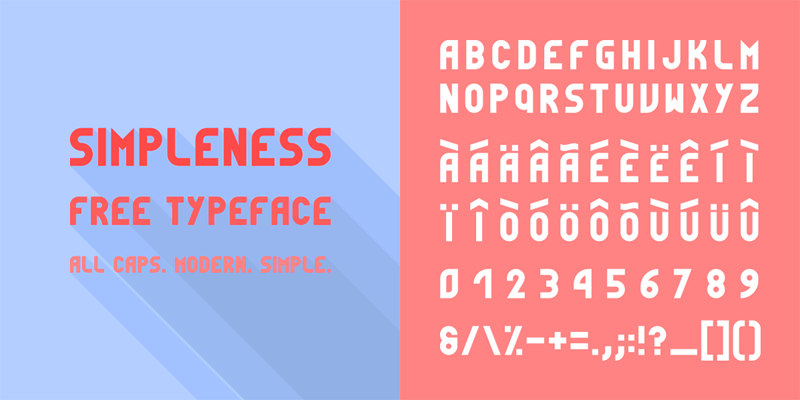
Preview and download Simpleness Font. Created by Valentin François in Fancy Retro styles with Public domain / GPL / OFL license.
My second font. Simpleness is an all caps minimalist typeface, inspired by the Bauhaus movement. Feel free to use it or modify it as you wish. Credits are of course appreciated and I would be pleased to feature your work on my website if you use this font. You can also check my other free fonts : - Philippine (http://www.dafont.com/fr/philippine.font) - Geomaniac Demo (http://www.dafont.com/fr/geomaniac.font) - Golden Ratio Demo (http://www.dafont.com/fr/golden-ratio.font) |